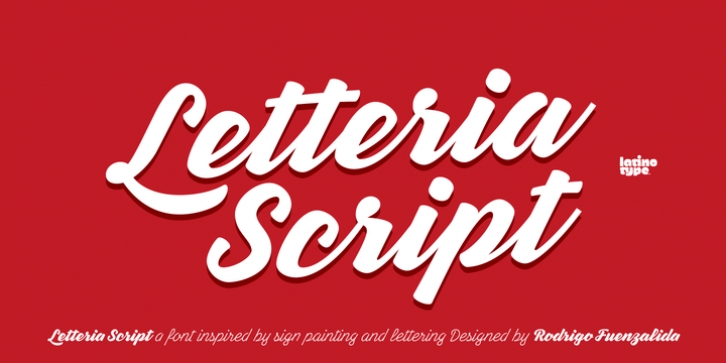
Letteria Script is a script font that recovers the spirit of lettering on signs, products labels and store facades found across the American continent. The family comes in 5 weights and each of them gives glimpses of the tool behind the design.
This 5-weight font family contains a set of 800 characters including initial and final forms, ligatures and swashes that makes it the perfect choice for branding, packaging, titles, advertising and publishing projects.